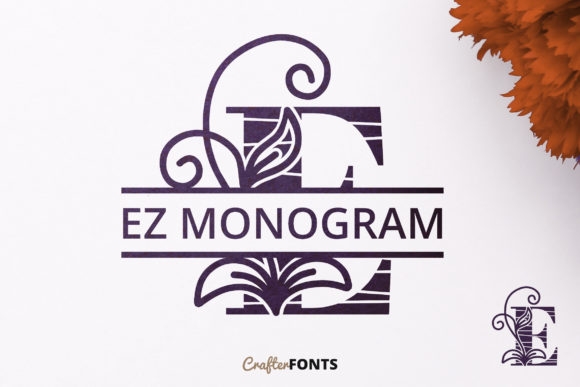
Prepare to be captivated by the EZ Monogram Font, an extraordinary decorative font that exudes elegance and sophistication. Step into a world of creativity and limitless possibilities, where your designs will take center stage.
With EZ Monogram, you hold the key to unlocking a treasure trove of visual wonders. Create wedding invitations that radiate romance and timeless beauty. Design stationary art that leaves a lasting impression, carrying your heartfelt messages with grace and charm. Craft social media posts that burst with vibrancy and personality, captivating your audience with every scroll. The possibilities are as vast as your imagination.
Picture this: a wedding invitation adorned with the delicate strokes of EZ Monogram, evoking a sense of enchantment and ethereal beauty. Your guests will be mesmerized by the exquisite details, feeling the magic of the moment even before the celebration begins.
Envision the allure of stationary art that speaks volumes without uttering a single word. With EZ Monogram, your words will dance across the page, carrying emotions and memories with heartfelt elegance. Create thank-you notes that express your gratitude with a touch of sophistication. Design greeting cards that warm hearts with their thoughtful messages, beautifully displayed in the captivating embrace of EZ Monogram.
Step into the realm of social media, where creativity reigns supreme, and let EZ Monogram be your secret weapon. Craft posts that demand attention, captivating your audience with their visual splendor. Share quotes that inspire and uplift, adorned with the distinctive charm of EZ Monogram. Create announcements that resonate with your followers, leaving a lasting impression that keeps them coming back for more.
EZ Monogram is more than just a font; it's a gateway to a world of visual artistry. With its modern, distinct, and stylish flair, it transforms ordinary designs into extraordinary masterpieces. Fall for its ravishing style and let your creativity soar to new heights. Unleash your imagination and experience the boundless possibilities that await you with EZ Monogram.